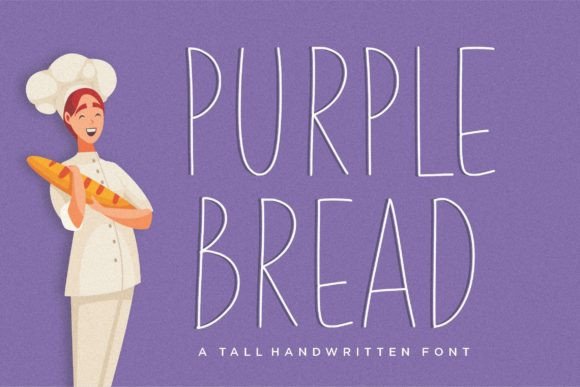
Welcome to the world of Purple Bread Font, a script font family that will captivate your imagination and transform your creative projects. Step into a realm of enchanting handwritten artistry, where each letter dances with grace and elegance. This tall and slender font exudes a playful charm, inviting you to explore endless possibilities of expression.
With Purple Bread Font, your designs will come alive with a touch of whimsy and sophistication. Its thin strokes create a delicate balance, adding an airy feel to your words. Whether you're crafting logos, designing invitations, or creating eye-catching social media graphics, Purple Bread Font will elevate your work to new heights.
Unleash your creativity and let Purple Bread Font guide you through a journey of artistic exploration. Its versatility knows no bounds, adapting seamlessly to any project you envision. From whimsical illustrations to heartfelt messages, this font will lend a touch of magic to every word you write.
If you seek a font that speaks to your soul and ignites your imagination, look no further than Purple Bread Font. Its captivating presence will draw your audience in, leaving them spellbound by your designs. Embrace the beauty of handwritten artistry and let Purple Bread Font transform your creative dreams into a reality.